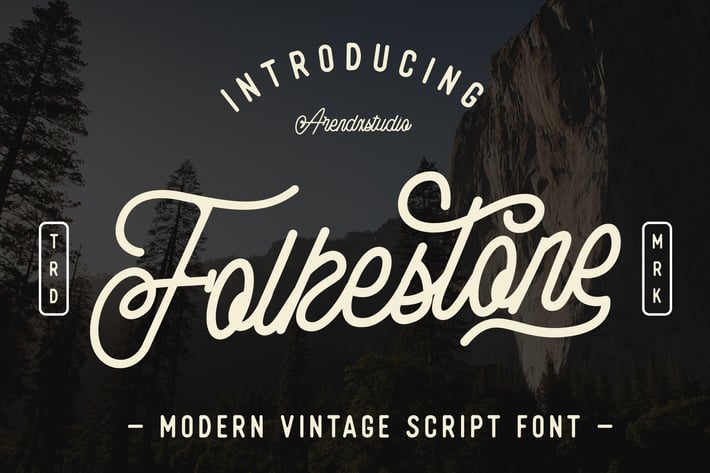
Folkestone - Modern Vintage Script Font
Folkestone - Modern Vintage Script Font is a font with distinctive handwritten characters perfect for branding projects, logos, wedding designs, media posts, advertisements, product packaging, product designs, labels, photography, watermarks, invitations, stationery, and any project who need handwritten dishes.